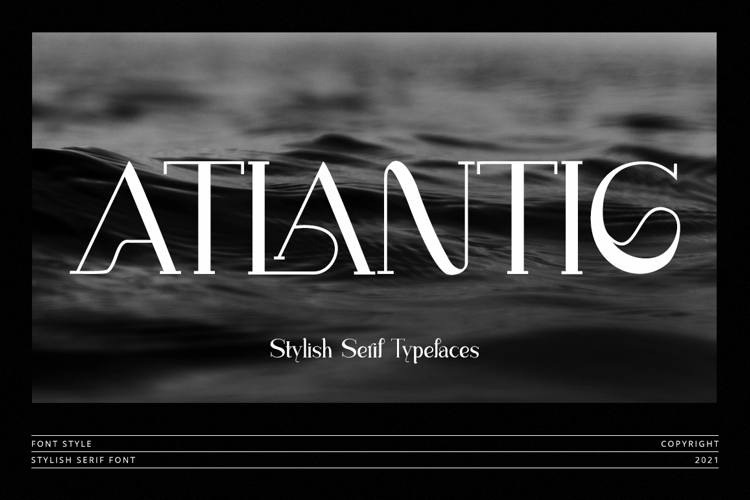
Atlantic Font
Atlantic is a clean serif font family that is minimal and simple. This is a modern and unique font set that is sure to amplify all your design and typography needs.